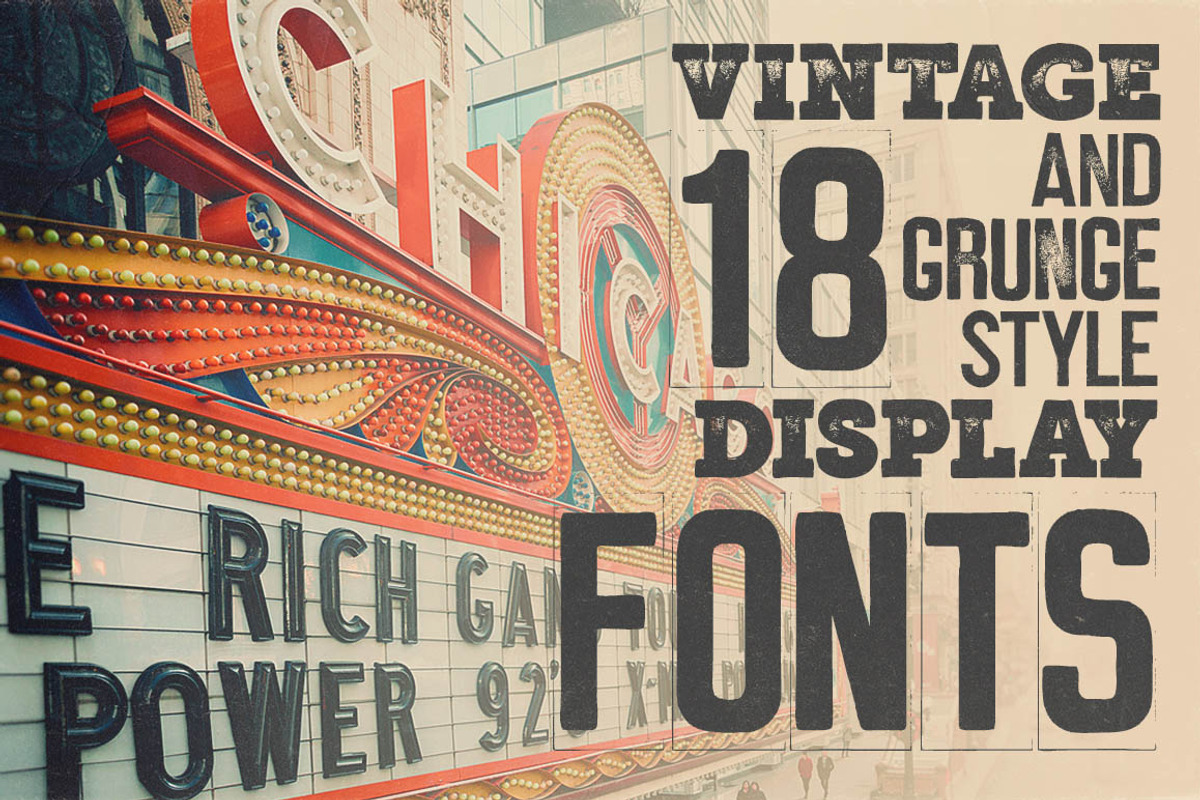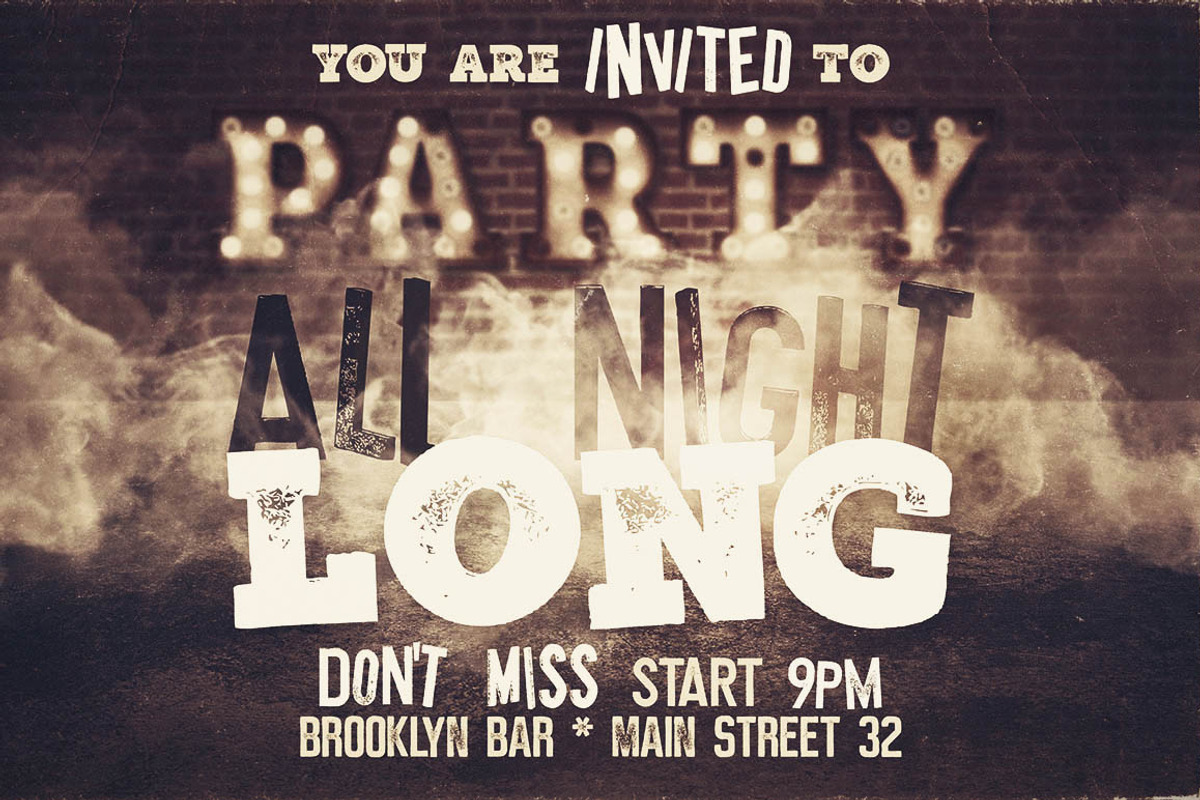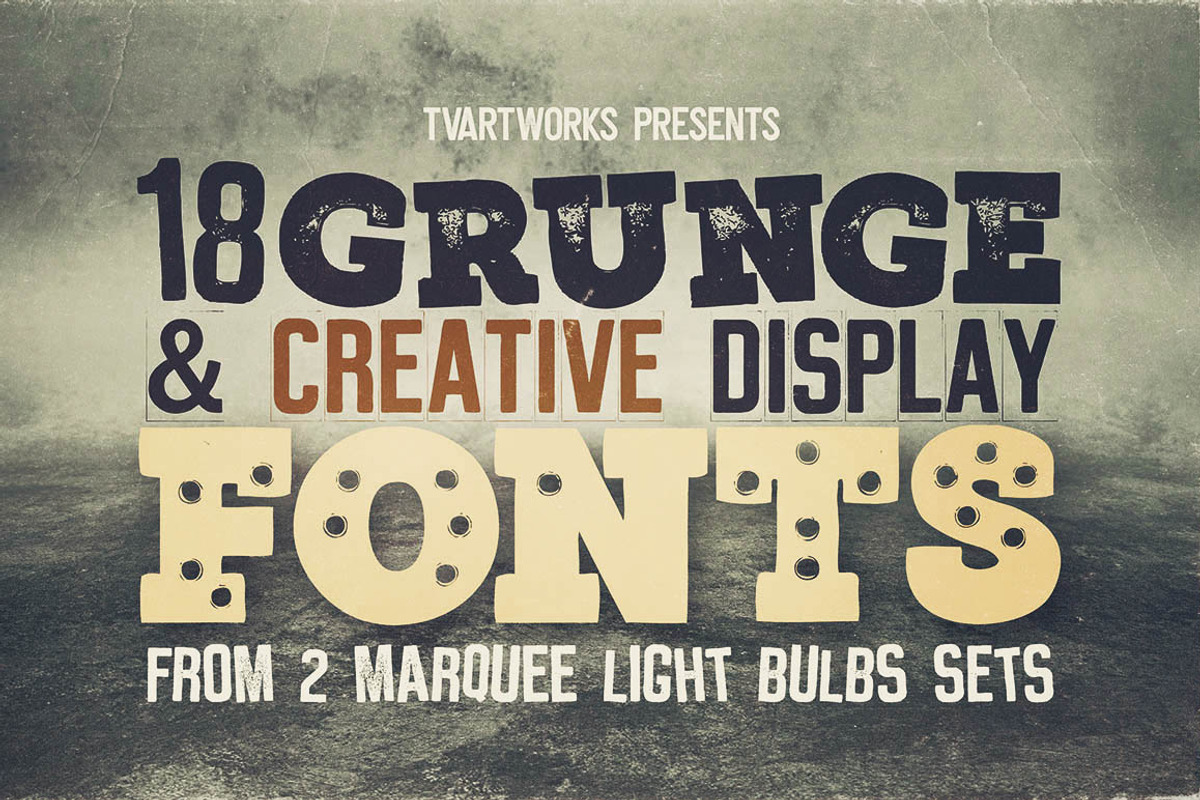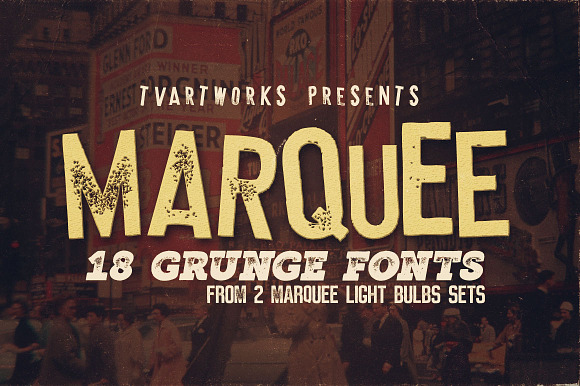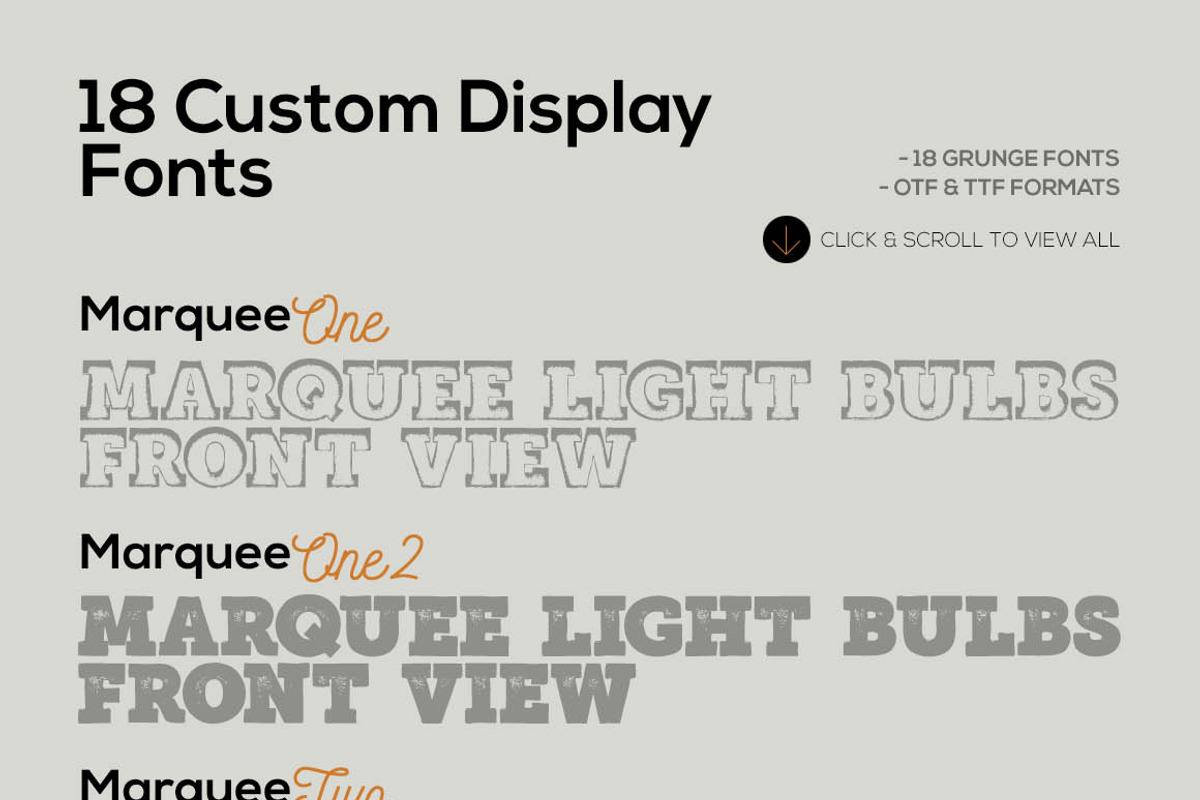
Marquee - 18 Grunge Fonts
You'll find 18 grunge style display fonts from our 2 big graphics bundles - so if you need just fonts this bundle is something for you :)